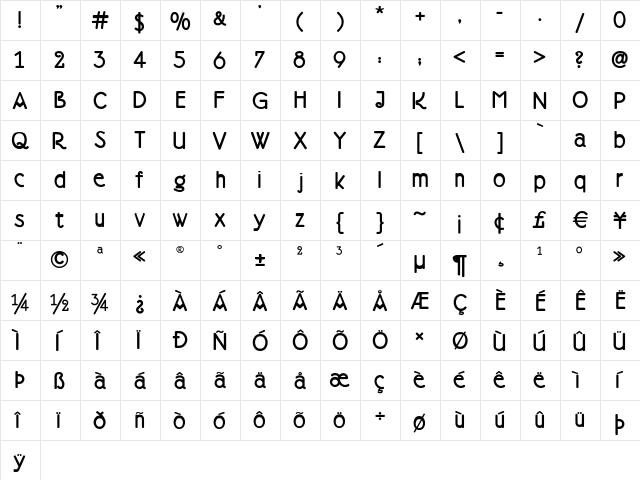
DoctorJekyll Regular
Design Context for DoctorJekyll Typeface
DoctorJekyll offers clean, dependable letterforms without strong stylistic allegiance, making it a practical choice for designers who need flexibility.
Pro Tip: Use DoctorJekyll in both headline and body roles to test its range before committing to a single application.